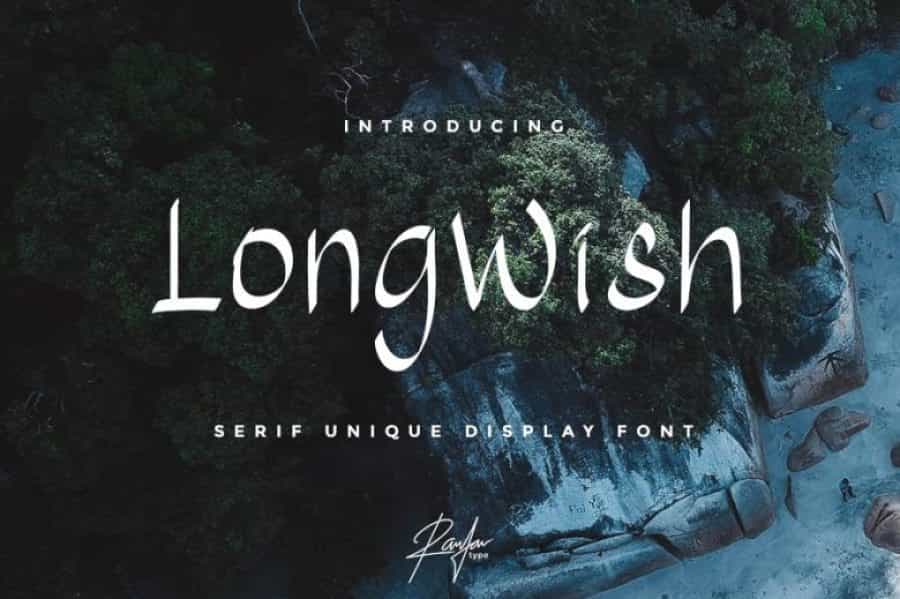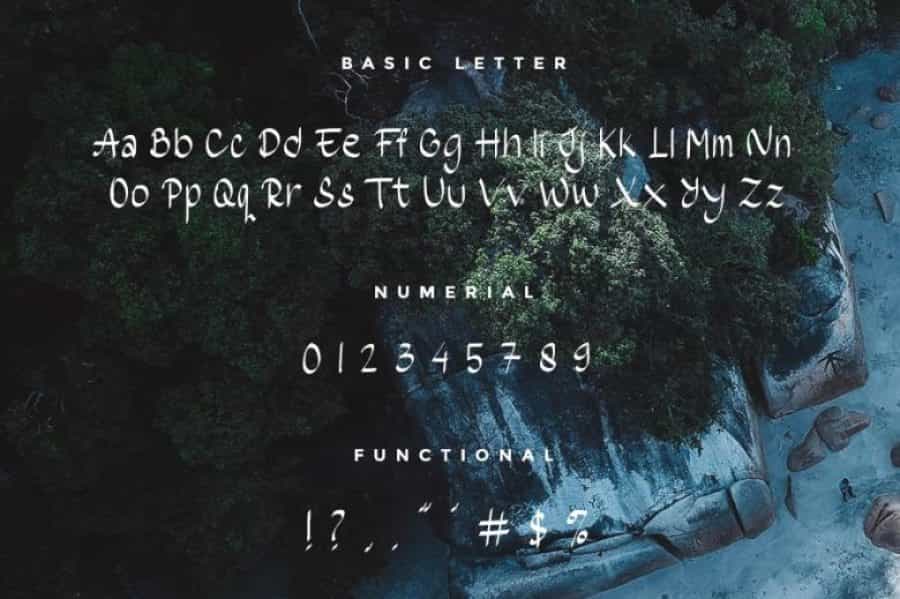
Discover LongWish Font, part of the Brush Calligraphy collection—a versatile and unique font perfect for adding a personal touch to your projects. Download it for free and enjoy crafting designs with style, from invitations to social media posts. This font is available exclusively for personal use, giving you the freedom to create without limits. Unlock your creativity with LongWish Font today!
Longwish Serif Unique Display font best suited for logos, handwritten quotes, product packaging, header, poster, merchandise, social media, and greeting cards.